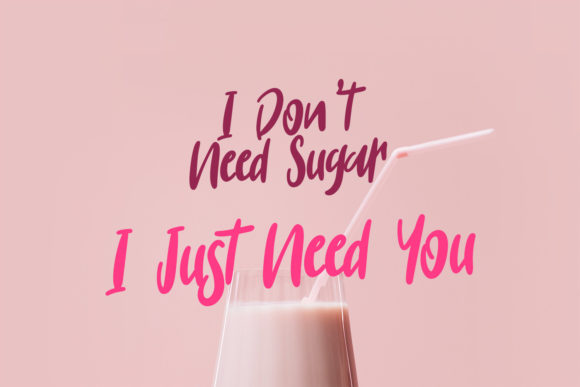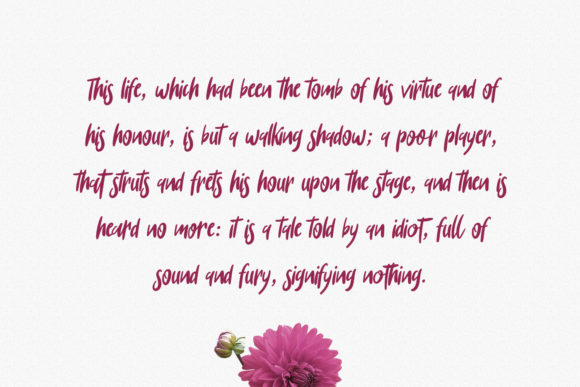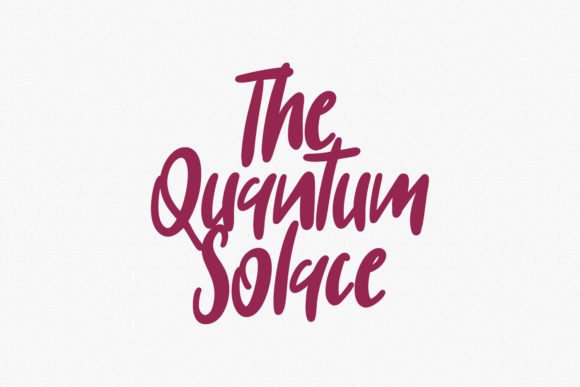
About Jimmslofs Script Font
Jimmslofs Script is a simple, relaxed and stylish script font. It is the best choice for creating eye catching logos, branding and quotes. Every letter has a unique and beautiful touch, which will make your design come alive!